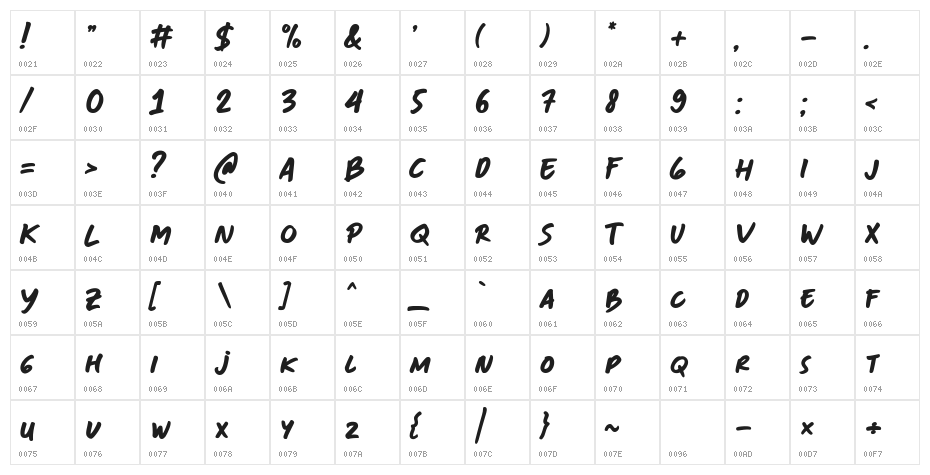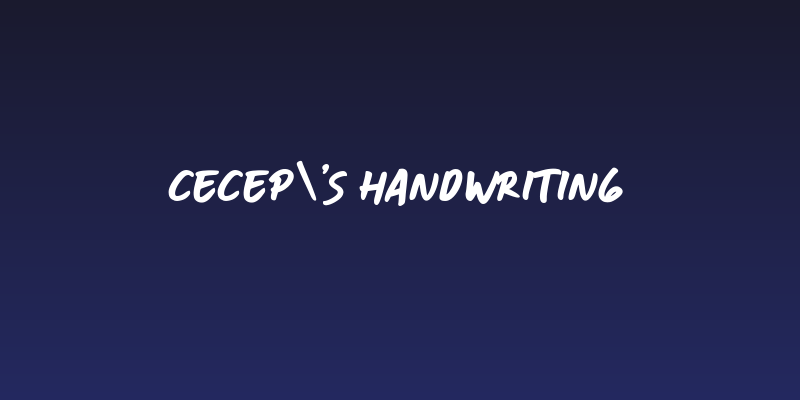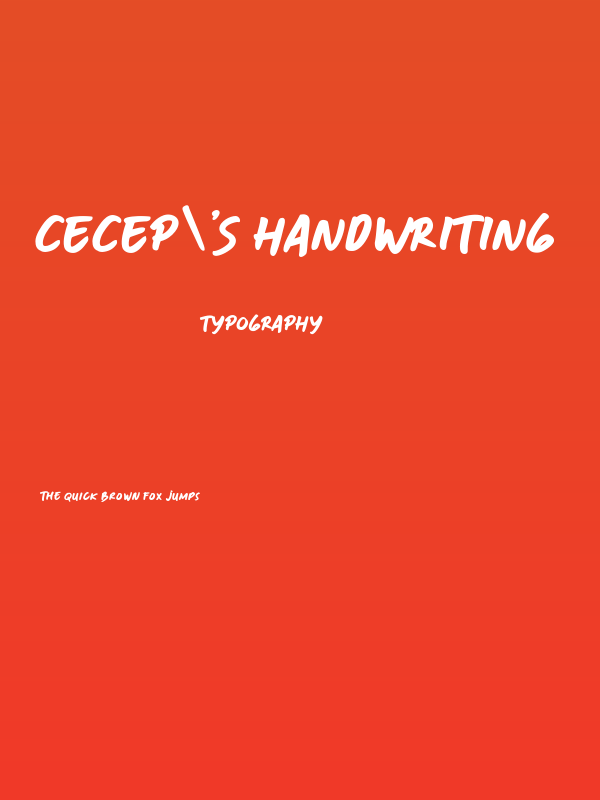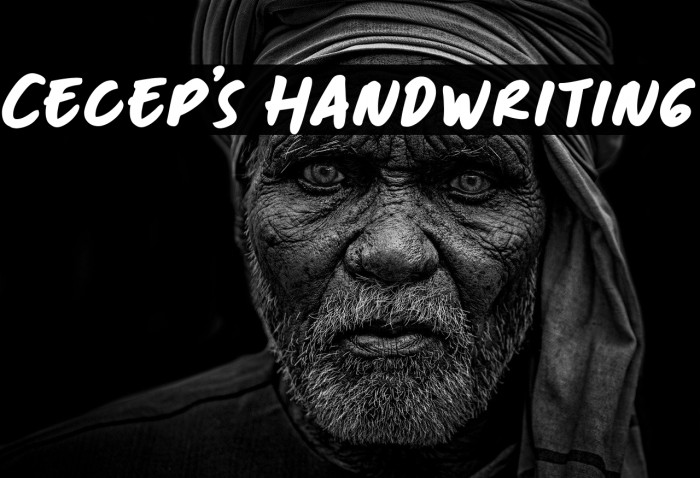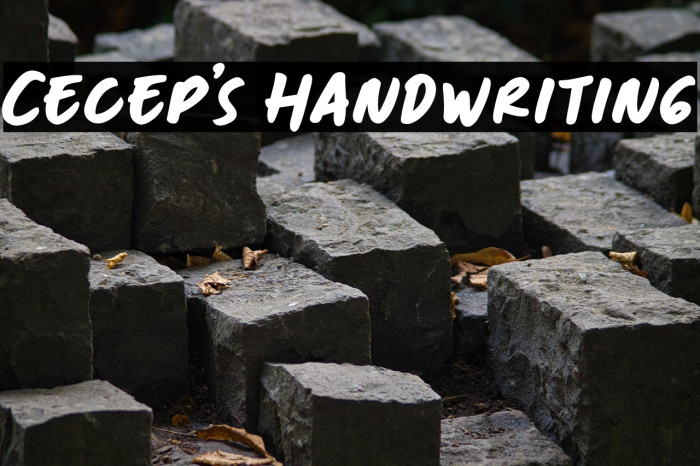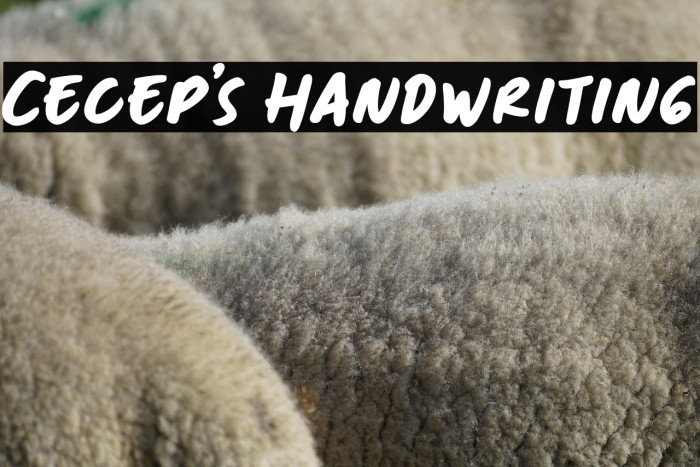
Cecep's Handwriting Font
Cecep's Handwriting Description
This font exudes a casual and playful handwritten style, characterized by its bold and rounded letterforms. Each character flows smoothly into the next, creating a sense of continuity and rhythm. The strokes are consistent in thickness, contributing to a cohesive appearance. The font maintains a friendly and approachable vibe, making it suitable for informal and creative projects. Its legibility is enhanced by the clear distinction between each letter, despite the handwritten style. The numbers and special characters are designed to match the overall aesthetic, ensuring uniformity across all elements.
| Proposed Projects | Ideal for greeting cards, children's books, casual branding, and social media graphics. |